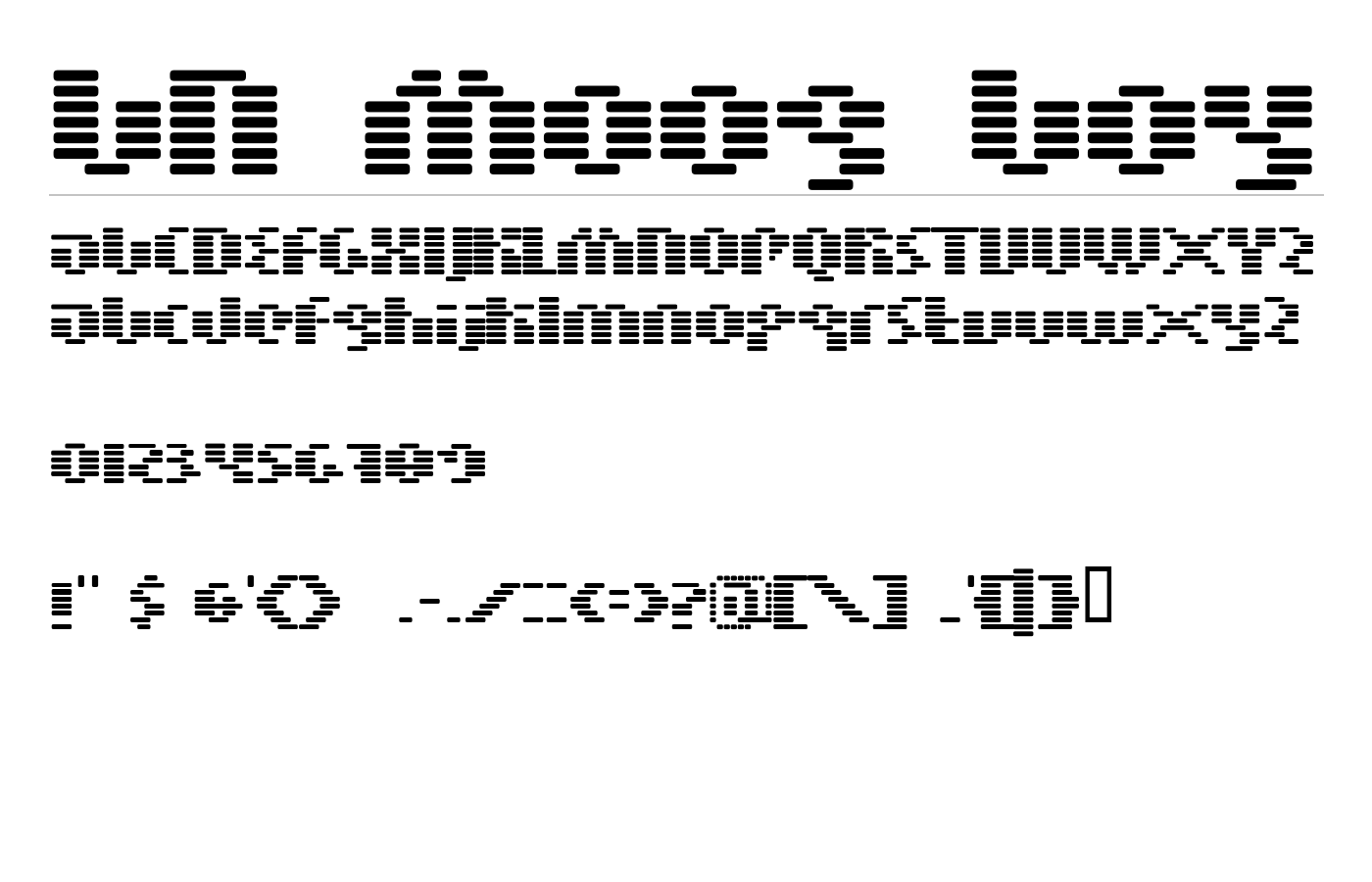
BN Moog Boy is a bold, highly stylized sans-serif display font that uses horizontal segmented bars to form each character, creating a modern, digital-inspired look. Its unique, blocky structure and strong geometric presence give it a futuristic and tech-savvy personality, making it ideal for eye-catching logos, posters, or branding related to electronics or gaming. This font works best in large sizes where its detailed pattern can be fully appreciated, adding a quirky, high-tech vibe to creative projects.
BN Moog Boy Font
About BN Moog Boy Font